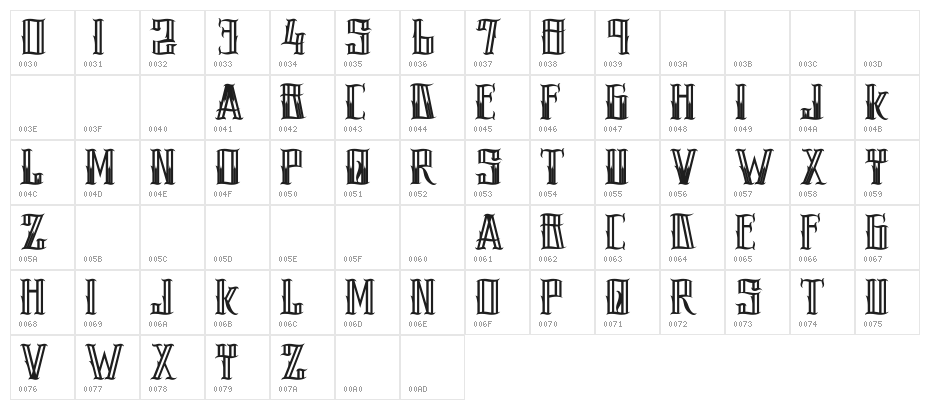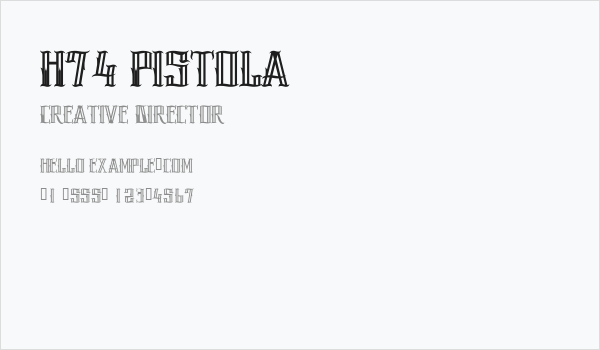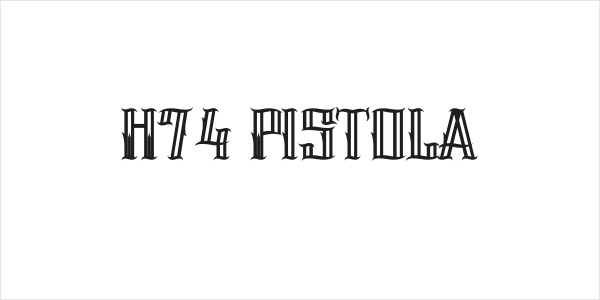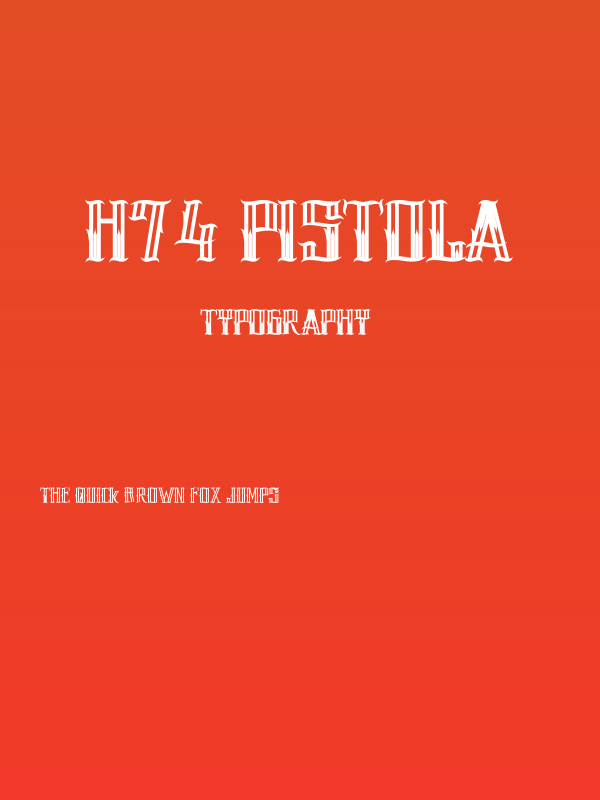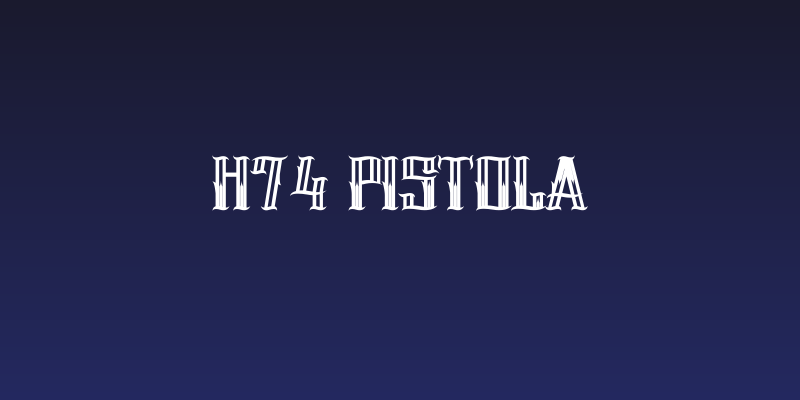
H74 Pistola Font
H74 Pistola Description
This font features a bold and striking design with a strong presence. The characters are crafted with sharp, angular lines and a high contrast between thick and thin strokes, giving it a dramatic and impactful appearance. The uppercase and lowercase letters maintain a consistent style, with the uppercase being particularly prominent. The numbers and special characters are designed to match the overall aesthetic, ensuring a cohesive look across all text elements. The font's unique style makes it suitable for projects that require a bold statement.
| Proposed Projects | Ideal for posters, logos, branding, and any design needing a strong visual impact. |